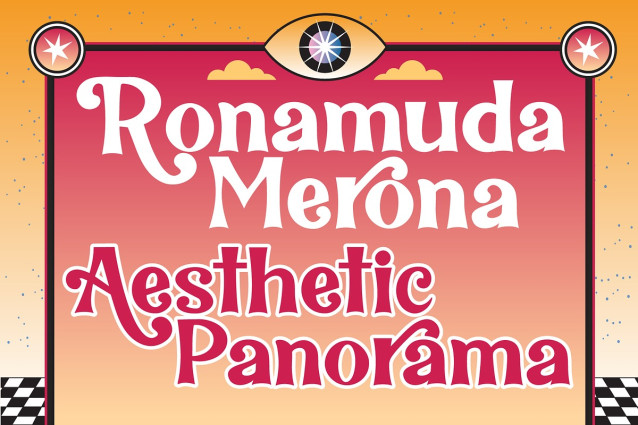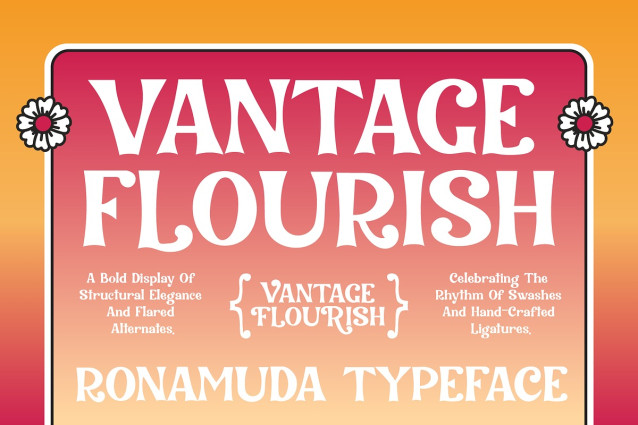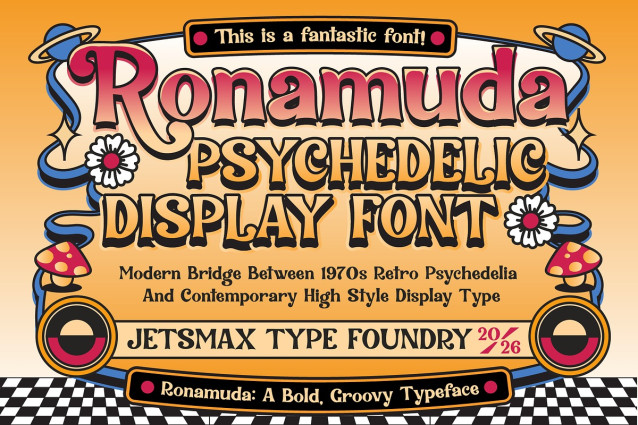
Ronamuda Font
Ronamuda Font is a high-contrast display font that captures the “Aesthetic Panorama” of 70s groove and modern luxury. It is a font designed for those who want their headlines to dance.
What sets Ronamuda apart is its extensive library of Stylistic Alternates and Ligatures. With a wide array of curvy swashes for both uppercase and lowercase letters, you can transform a standard word into a unique piece of lettering. From the dramatic tails on the uppercase ‘R’ and ‘K’ to the elegant descenders on ‘h’, ‘m’, and ‘n’, this font offers endless possibilities for customization.